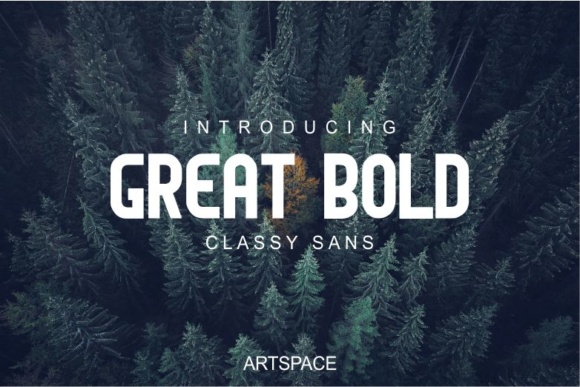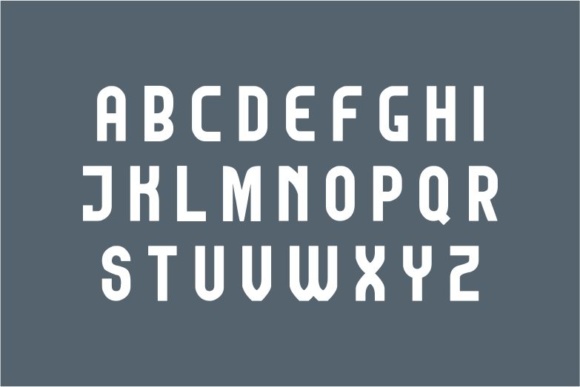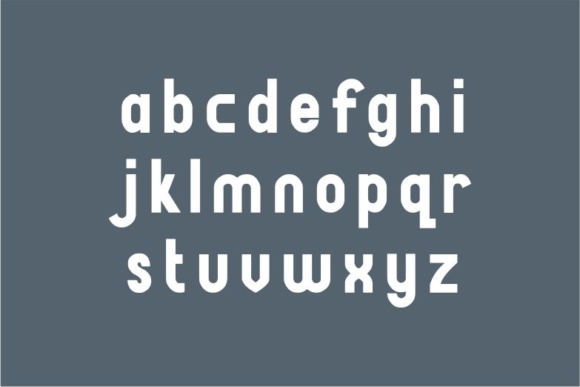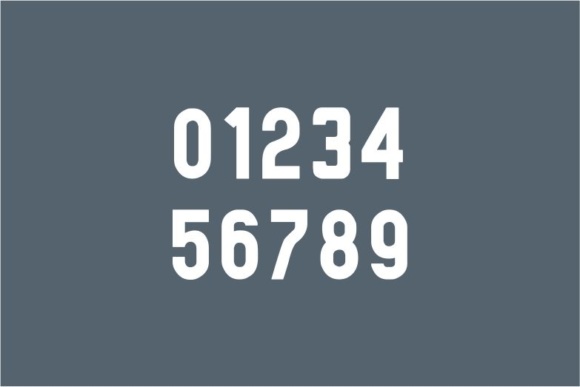
Great Bold Font
About the Great Bold Font
Make a bold statement with Great Bold Font, a powerful and memorable font. The Great Bold is a simple yet classy sans serif. It’s perfect for making your designs stand out!
Its strong, confident forms make it ideal for headlines, logos, and short impactful statements in branding materials and posters. The Great Bold excels in situations demanding immediate visual attention. However, its weight and boldness render it unsuitable for body text or lengthy paragraphs; readability suffers at smaller sizes.
Consider pairing it with a clean, neutral sans-serif like Open Sans for body copy, creating a strong contrast while maintaining a modern feel. Alternatively, a delicate serif such as Lora can add a touch of sophistication and balance the boldness. For a more playful approach, a rounded geometric sans-serif could provide a welcome contrast.
The overall personality of Great Bold is assertive and modern, conveying strength and authority. It’s a powerful choice for brands seeking to project confidence and sophistication.
Great Bold Font Example